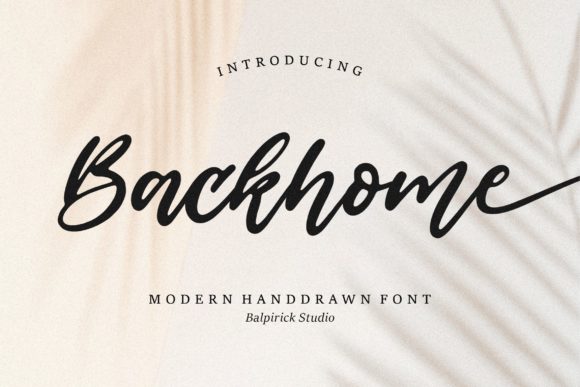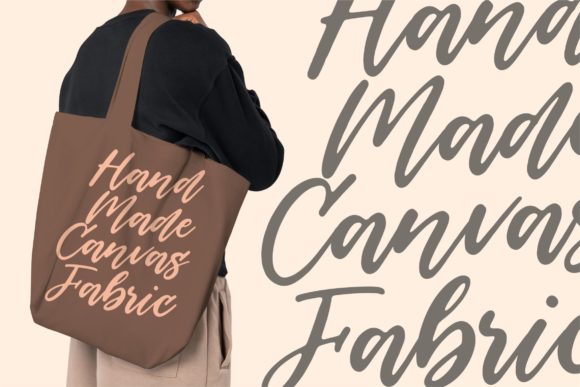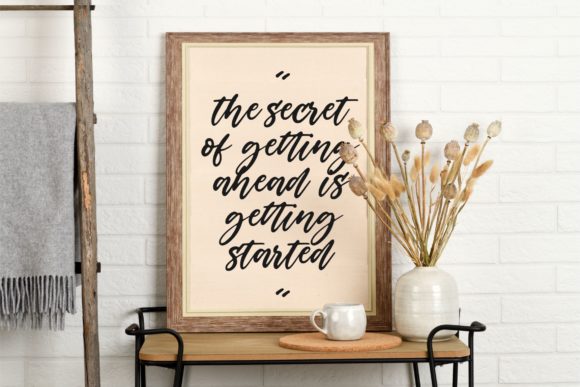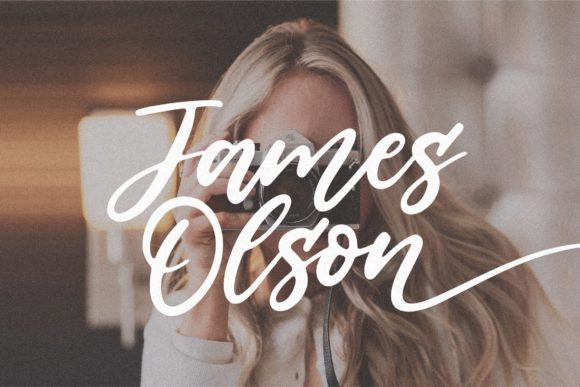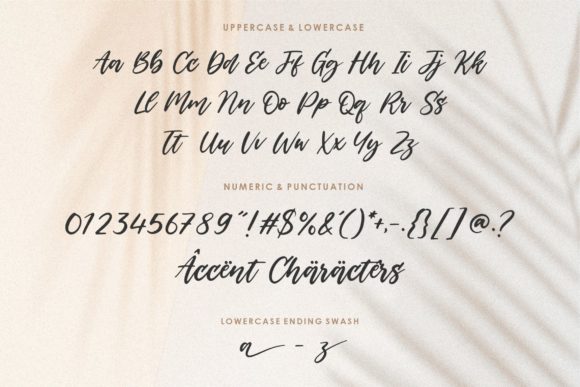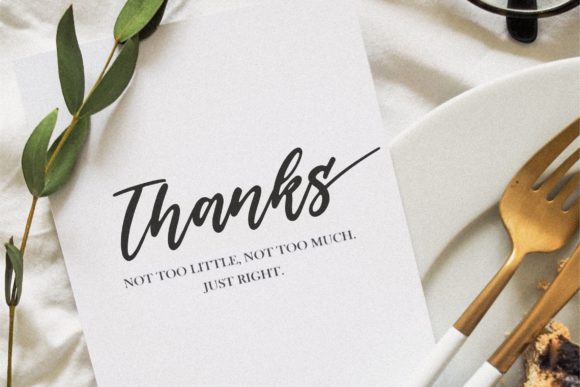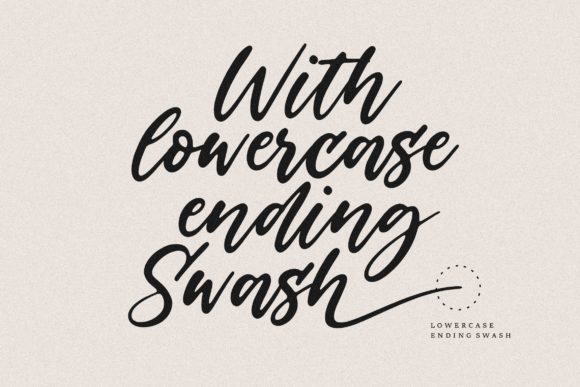
Backhome Font
About Backhome Font
Backhome is a modern handwritten font that will perfectly complement a variety of creations. Use it for product packaging, branding projects, social media posts, wedding invitations, and many others!